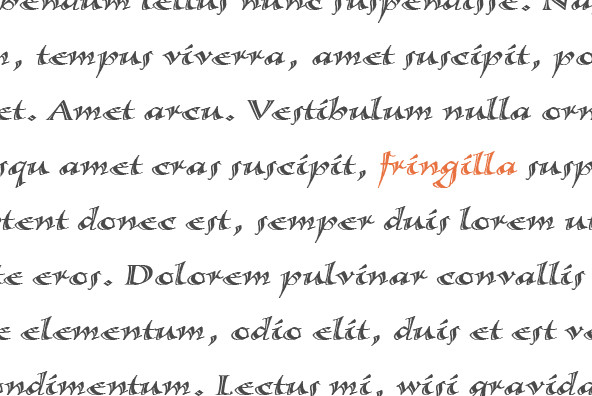
The original forms of Calligraphica were written with a split pen in a single stroke, achieving an inline calligraphic font.
The original forms of Calligraphica were written with a split pen in a single stroke, achieving an inline calligraphic font. The minuscules have a rougher look and the capitals have a smoother shape to imitate hand written calligraphy with more formal, decorative initial caps.